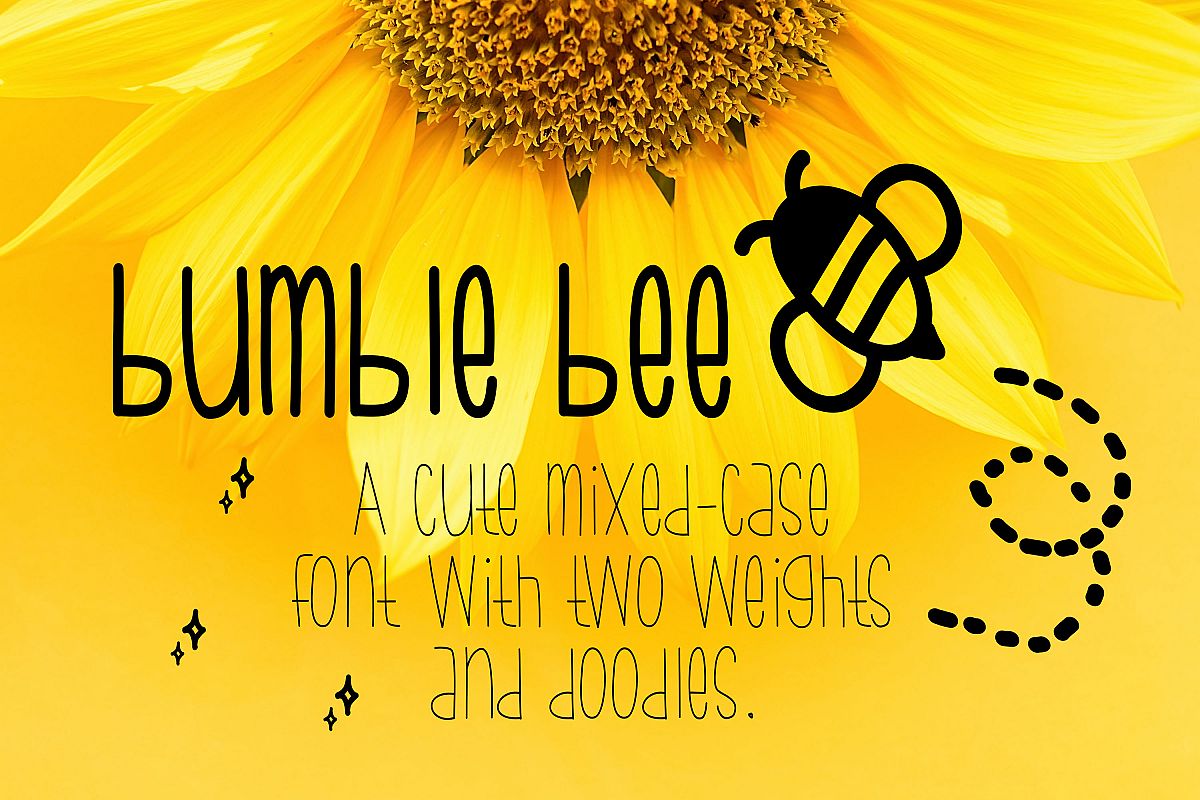
Bumble Bee
Bumble Bee is a cute mixed-case font with funky, youthful letters. This font also includes DOODLES! This font is perfect for an assortment of things and pairs very well with others (especially script fonts!). This font has two weights: Bold and Regular, and you can use this font for all sorts of things, including: